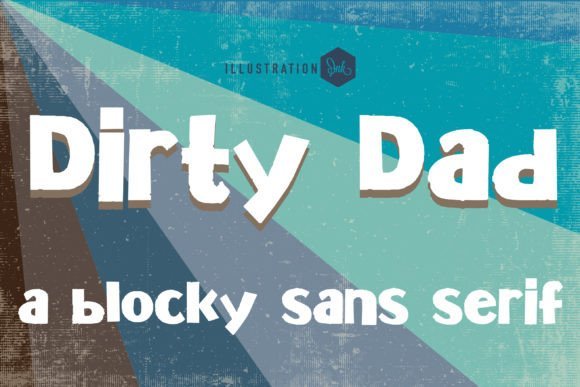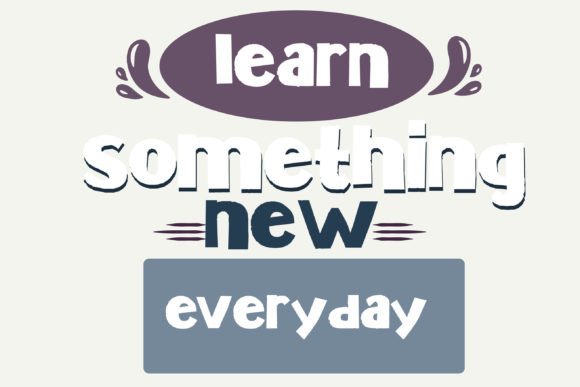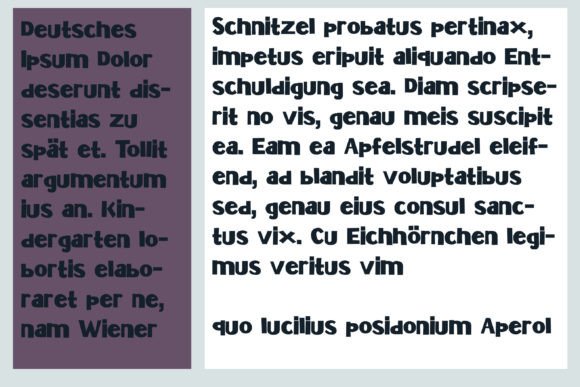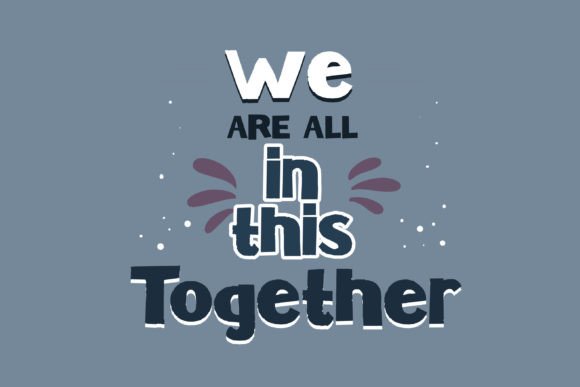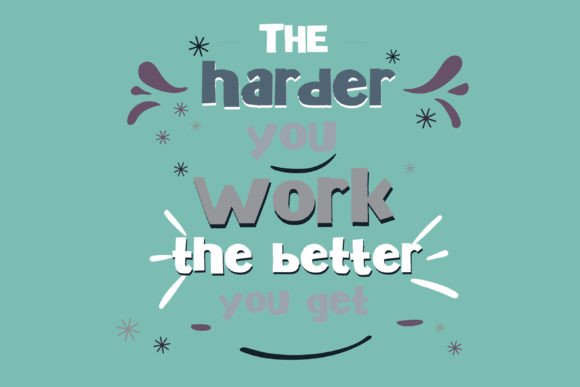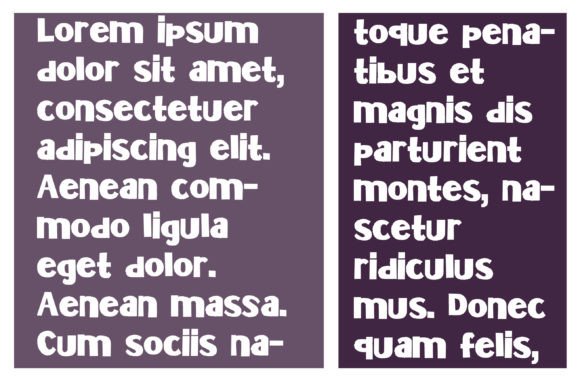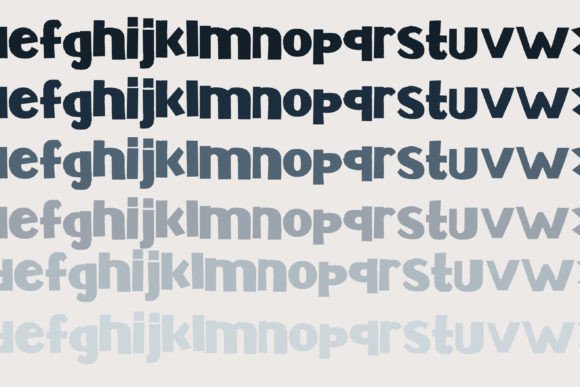
Make a Statement with the Dirty Dad Font
You’ve spent hours brainstorming the perfect concept, pouring your heart and soul into a design that you know is going to blow people away. And then, the moment of truth: it’s time to choose the perfect font to bring it all together. For those big, bold statements, you need a font that’s just as fearless – enter the Dirty Dad Font.
This heavy-hitting font is designed to make an impact, with its powerful weight and impactful style guaranteed to grab attention on posters, headlines, and more. Whether you’re a seasoned designer or just starting out, the Dirty Dad Font is an invaluable tool in your arsenal – and it’s about to become your new go-to for making a statement.
Dirty Dad Font Key Features
- Font Family: Dirty Dad Font is a unique display font designed for bold headings and titles. It comes in 3 font styles: Regular, Bold, and Italic.
- Size: The font family includes a wide range of weights, from Thin to Black, allowing for precise control over the level of boldness.
- Resolution: Designed to work at high resolutions, making it ideal for use in digital media, such as websites, social media, and mobile apps.
- Unique Characteristics: The Dirty Dad Font features a distressed, worn look with subtle texture and imperfections, giving it a rugged, vintage feel.
- Font Metrics: The font family includes advanced OpenType features, such as ligatures, swashes, and contextual alternates, allowing for a high level of customization and flexibility.
Dirty Dad Font Review
Overall, I’d say the Dirty Dad Font is a fun, bold choice for any design project. ✨ The font’s distressed, handwritten feel adds a unique touch to any text, making it perfect for creating a casual, laid-back atmosphere. I’ve used it in a few projects, and it’s always been a hit with clients.
- ✨ Unique, distressed look that adds character to text
- ✨ Perfect for creating a casual, laid-back atmosphere
- ✨ Works well for headings, titles, and short blocks of text
- ⚠️ May not be suitable for formal or professional projects
- ⚠️ Can be difficult to read at small font sizes
- ⚠️ Limited character set, which may limit its use in certain projects
Overall, I’d give the Dirty Dad Font 4 out of 5 stars. It’s a great choice for designers looking to add some personality to their work, but it may not be the best fit for every project. With a little creativity, however, it can be a real game-changer.
Tips for Getting the Most Out of “Dirty Dad Font”
Use “Dirty Dad Font” to add a touch of ruggedness and personality to your designs.
Combine it with bold colors and striking graphics to create eye-catching visual effects.
Experiment with different font sizes and styles to create a unique and memorable look.
Compared to Dirty Dad Font, Alex Brush has a more polished and refined feel, making it suitable for more formal and professional applications.